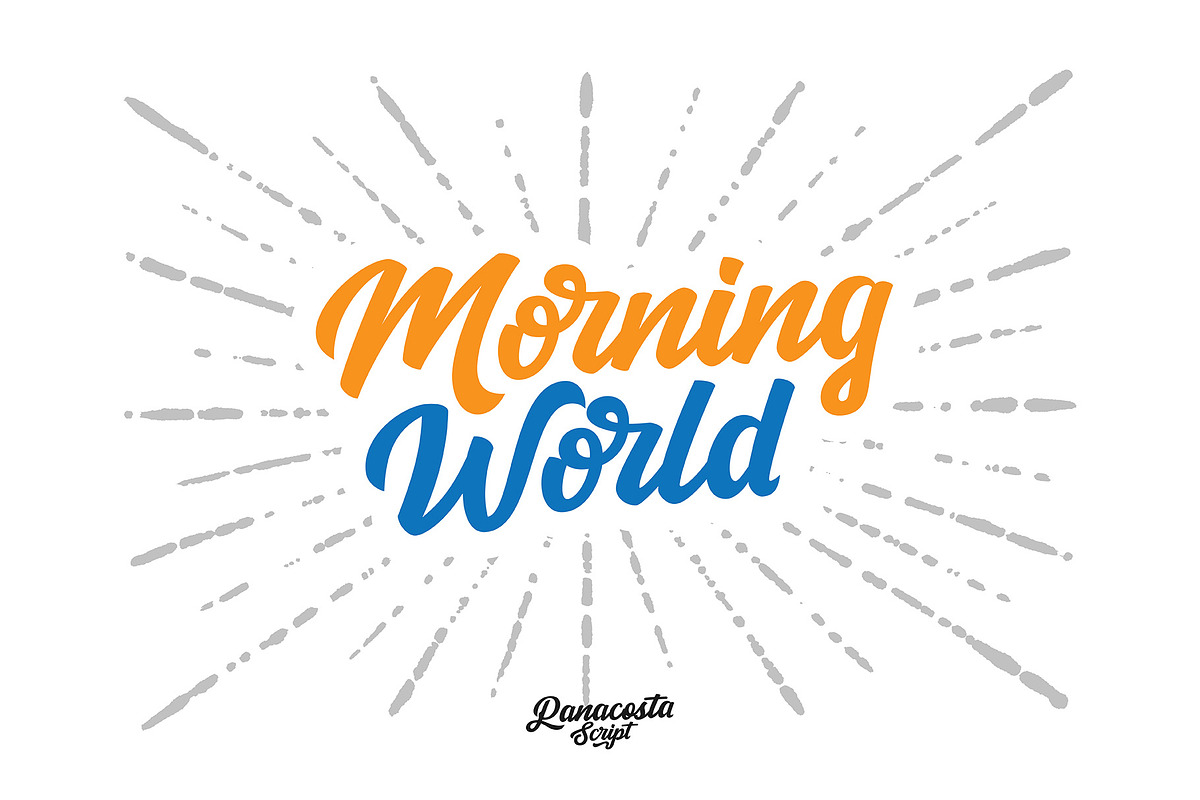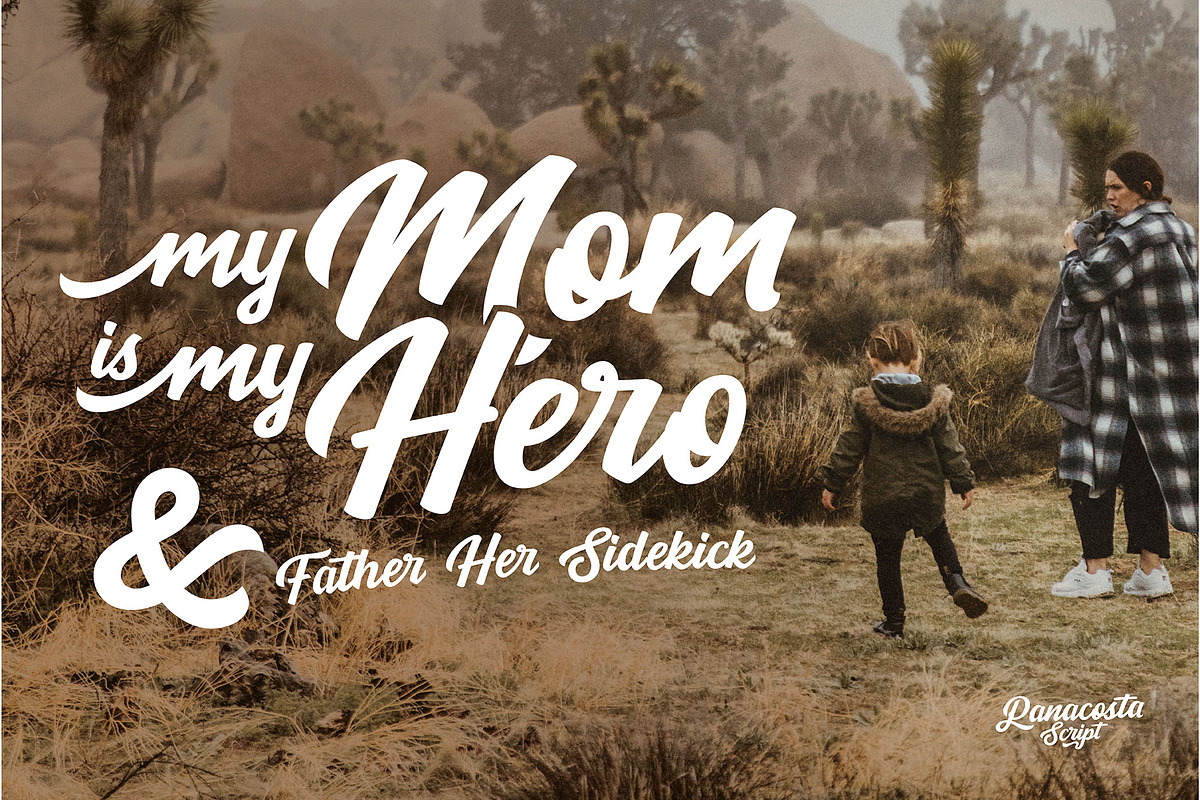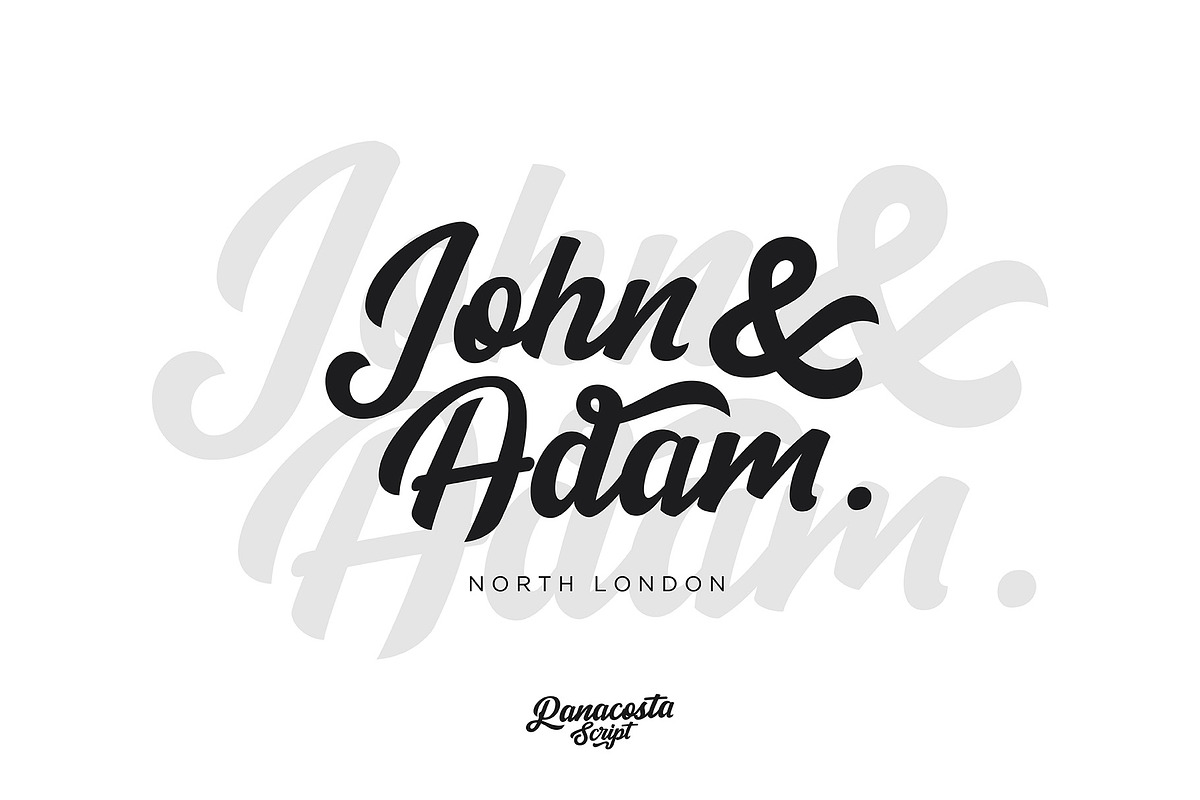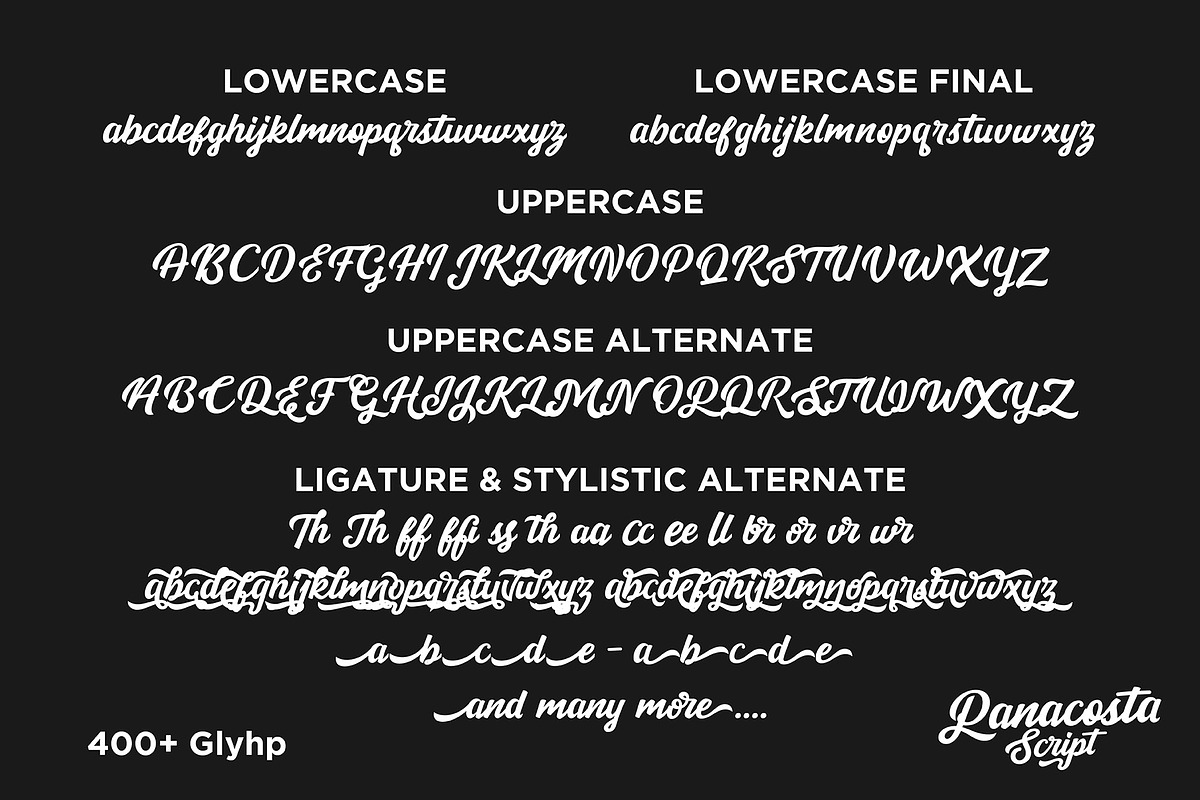
Panacosta Script
Introducing Panacosta Script modern bold script typeface crafted in 2020
this is lovely font can boost your design with final glyph added and many stylistic alternate, play with bold unique font to make your design such as : Poster, Logo, Wedding invitation, etc more playful and looks good
Feature Panacosta Script had a few feature like
- LIGATURE --- a few ligature glyph added like ff, ffi, aa, ee, etc
- CONTEXTUAL ALTERNATE---this feature like final and front character without tail
- STYLISTIC ALTERNATE --- alternate for every glyph
- STYLISTIC SET (SS01-SS05)